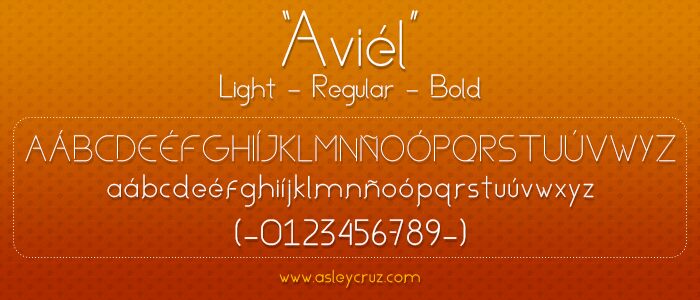
Aviel Light by Asley Cruz is a free geometric sans serif with extremely fine, even strokes and airy proportions. Broad curves meet pointed diagonals, producing letters that look spare and architectural rather than conventionally neutral.
Its clean linear shapes echo technical drawings and minimalist illustration, making it a useful face for architecture portfolios and gallery posters. The generous forms also suit fashion branding and refined event invitations, where the lettering can supply structure without looking severe. Its strongest audience is designers working in contemporary cultural and luxury settings, especially when delicacy matters more than weight.